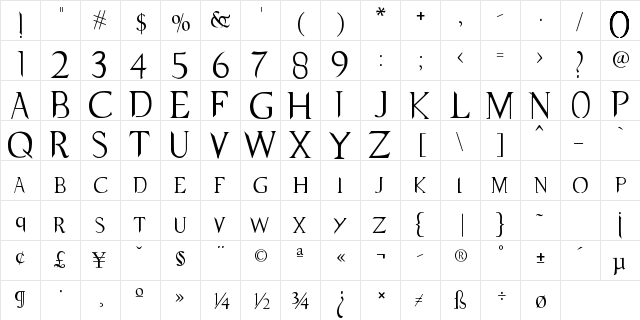
Supernatural Knight Regular
Design Context for Supernatural Knight Typeface
Supernatural Knight is a composed and adaptable typeface that performs quietly and consistently across a wide range of design contexts.
Pro Tip: Use Supernatural Knight in both headline and body roles to test its range before committing to a single application.